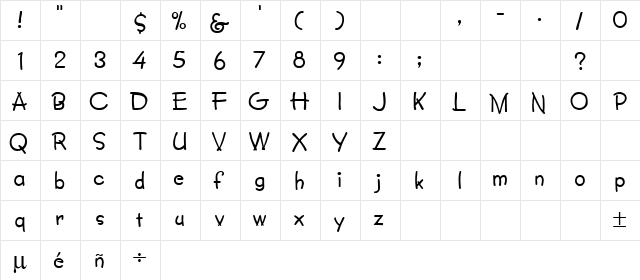
Lumparsky Regular
Design Context for Lumparsky Typeface
Lumparsky offers clean, dependable letterforms without strong stylistic allegiance, making it a practical choice for designers who need flexibility.
Pro Tip: Pair Lumparsky with a font of contrasting weight or personality to build a more expressive typographic hierarchy.